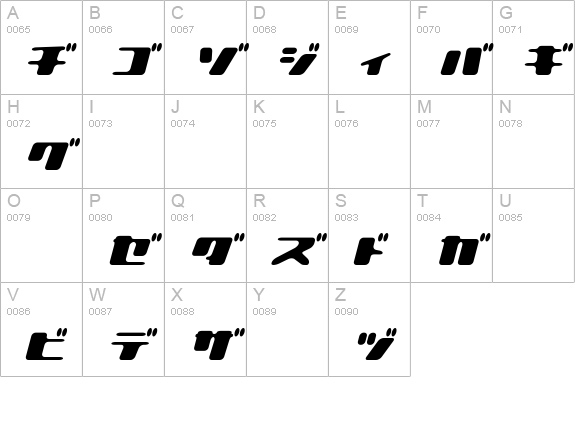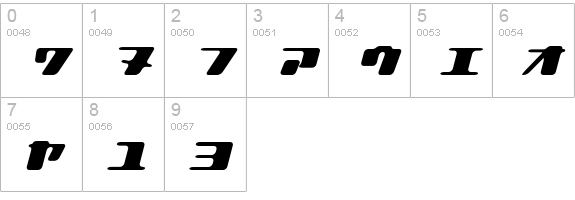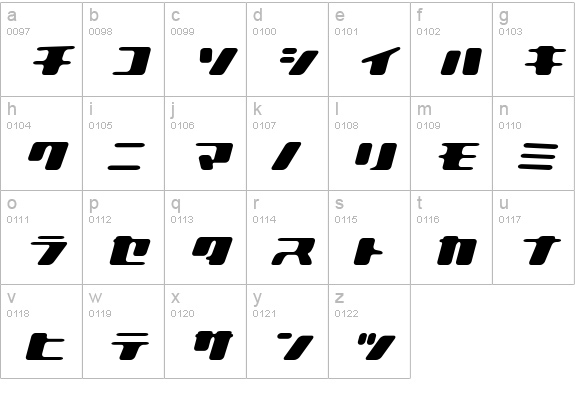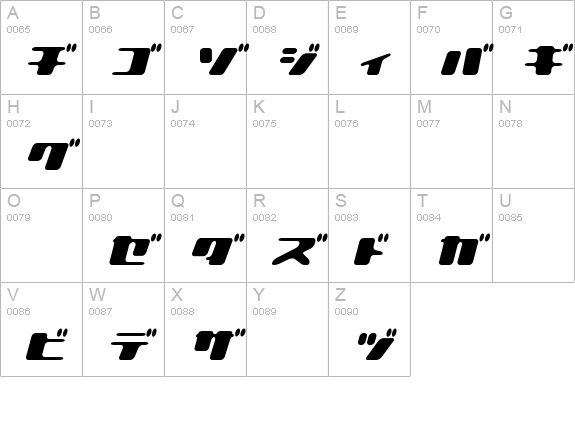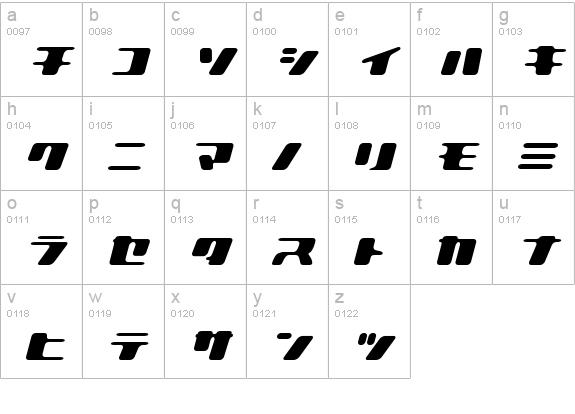
LBIlovely bold italic Kana Kat Font Details
LBIlovely bold italic Kana Kat is a strong, high-contrast, italic variant in the LBIlovely typeface family \xE2\x80\x94 well suited to headlines, attention-grabbing titles, and strong calls-to-action.
Introducing the LBIlovely bold italic Kana Kat font, a stunning and eye-catching typeface that is sure to make a bold statement in any design project. This delightful font combines the elegance of bold lettering with the playful charm of italicized characters, creating a truly captivating visual experience. With its unique and distinctive design, the LBIlovely font is perfect for adding a touch of personality to logos, branding materials, advertisements, social media posts, and more. Its versatility allows it to effortlessly adapt to various design styles, from modern and contemporary to whimsical and playful. What's even more exciting is that the LBIlovely bold italic Kana Kat font is completely free! Yes, you read that right. This incredible font is freely available to download at FontsMarket.com, a trusted source for high-quality fonts. Now you can enhance your designs without breaking the bank. Whether you're a professional designer or a creative enthusiast, the LBIlovely bold italic Kana Kat font is a must-have addition to your font collection. Its bold strokes and elegant curves will instantly elevate your designs, making them stand out from the crowd. So why wait? Download the LBIlovely bold italic Kana Kat font for free at FontsMarket.com and unlock a world of endless creative possibilities. Let your imagination run wild and create visually stunning designs that leave a lasting impression.